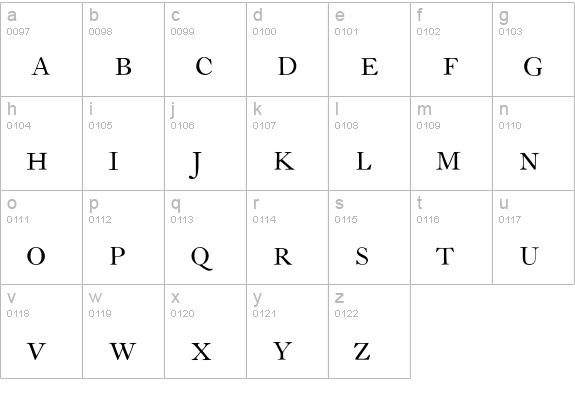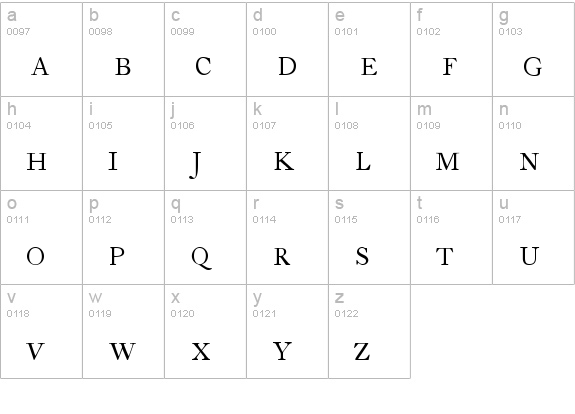
CaslonH-SC Font Details
CaslonH-SC is a timeless and elegant serif font that exudes sophistication and class. This font is perfect for adding a touch of traditional charm to your designs, whether you're working on invitations, branding materials, or editorial layouts. With its delicate serifs and graceful letterforms, CaslonH-SC is a versatile typeface that can be used for a wide range of projects. The beauty of CaslonH-SC font lies in its classic design and readability, making it a popular choice among designers and typographers alike. It brings a sense of history and heritage to any project, while still feeling fresh and contemporary. And the best part? CaslonH-SC is available for free download at FontsMarket.com, so you can start using this beautiful font in your designs right away. Don't miss out on the opportunity to add this stunning typeface to your font collection.